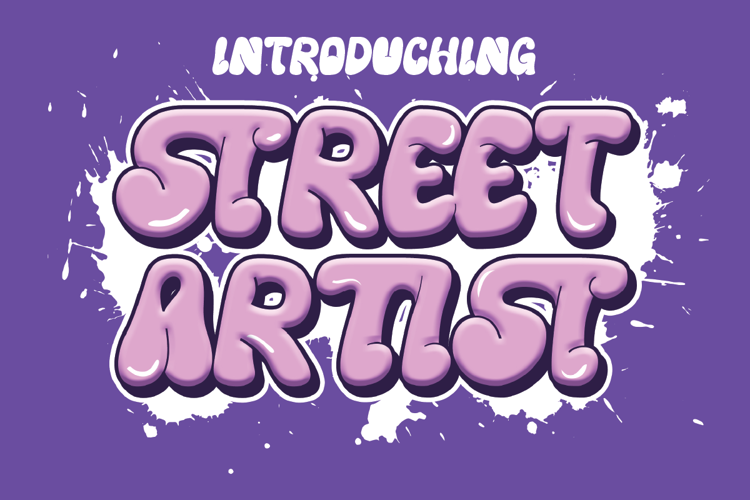
Street Artist Font
Street Artist Regular Style
Street Artist Display Font - This font would be perfect for photography, watermarks, social media posts, advertisements, logos & branding, invitations, product design, labels, stationery, product packaging, special events, and other projects. This font is PUA encoded which means you can access all glyphs with ease!